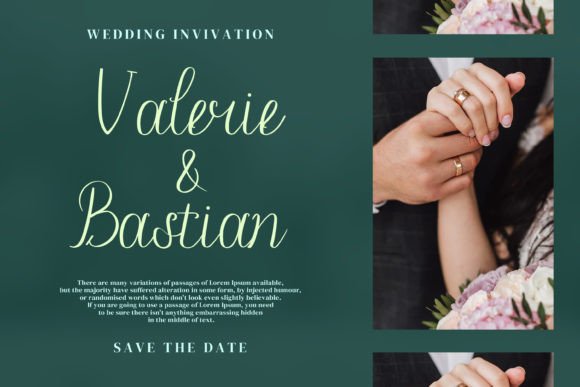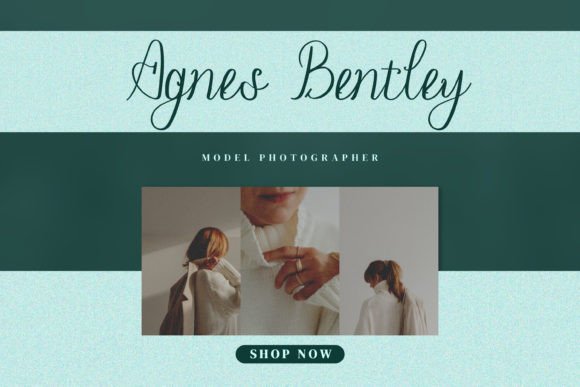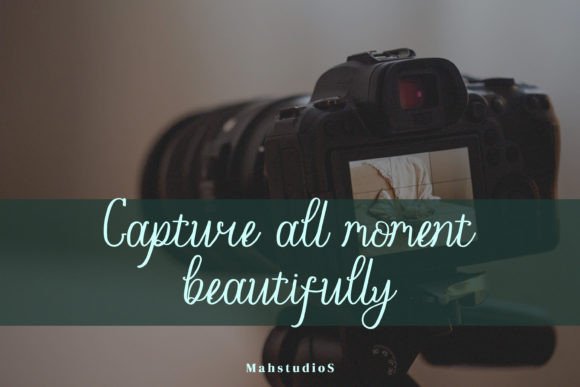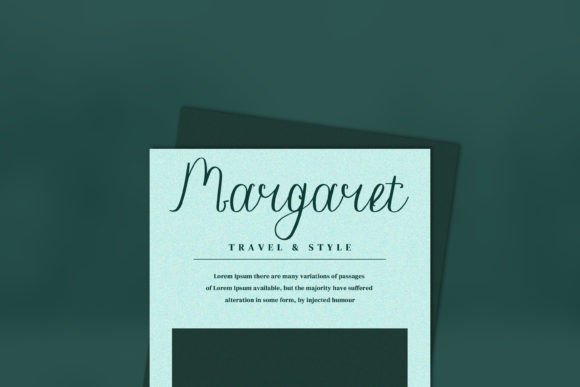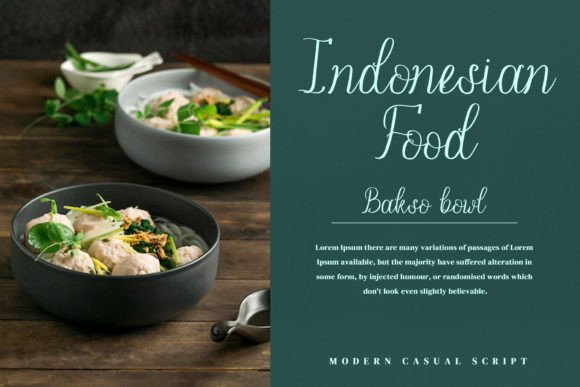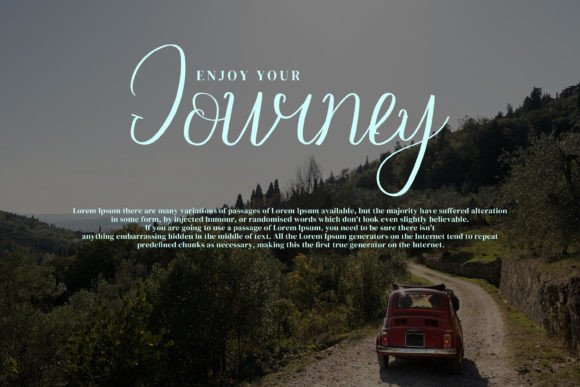
Introduction to Rittani Font
Have you ever stared at a blank canvas, waiting for inspiration to strike? The blank page can be daunting, but what if you had the perfect tool to spark your creativity? For designers, finding that perfect design resource can be a game-changer. And, we’re excited to introduce you to one of the most versatile fonts out there – the Rittani Font.
With its thin-lettered handwritten script, Rittani Font adds a touch of elegance and sophistication to any creative project. Whether you’re working on a high-quality design for a business card, a transparent background for a logo, or a free download for a digital product, this font is sure to make your designs come alive.
Key Features of Rittani Font
- Unique characteristics include its cursive and script styles, making it perfect for creating visually appealing headings and titles.
Honest Review: Rittani Font
I recently stumbled upon the Rittani Font, a unique design resource that caught my attention with its elegant and sophisticated style. As a designer, I’m always on the lookout for high-quality fonts to elevate my creative projects, and the Rittani Font definitely delivers.
- ✨ The font is highly versatile, suitable for a wide range of creative projects, from fashion to editorial content.
- ⚠️ The font is not as extensive as some other font collections, with a limited number of styles and weights.
- ⚠️ The Rittani Font may not be suitable for projects requiring a bold or playful tone, as it’s more suited to elegant and sophisticated designs.
Overall, I’m impressed with the Rittani Font, and I’d definitely recommend it to designers looking for a high-quality, elegant font to add to their design resource library. While it may have some limitations, its unique style and transparent background make it a valuable addition to any creative project.
The Rittani Font is a high-quality, versatile font perfect for any creative project. With its transparent background and clean design, it’s an excellent choice for designers looking for a reliable design resource.
To get the most out of the Rittani Font, use it in conjunction with other high-quality design resources and experiment with different font sizes and styles.
The Rittani Font is perfect for a variety of design projects, including logos, brochures, and business cards. Its clean design and transparent background make it an excellent choice for designers who want a professional-looking font without a lot of fuss.